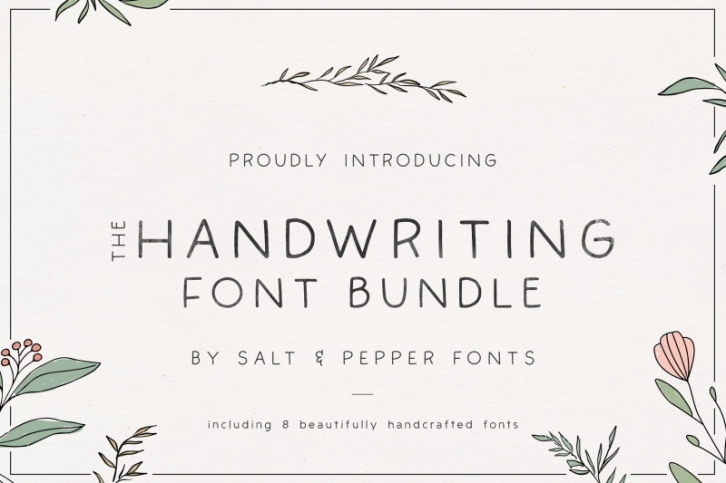
The Handwriting Font Bundle (Handwritten Fonts, Handwriting Fonts) Download
Looking for Handwritten Fonts, Handwriting Fonts? Introducing the wonderful Handwriting Font Bundle, priced at only $14 this pack includes 8 beautifully hand drawn fonts.